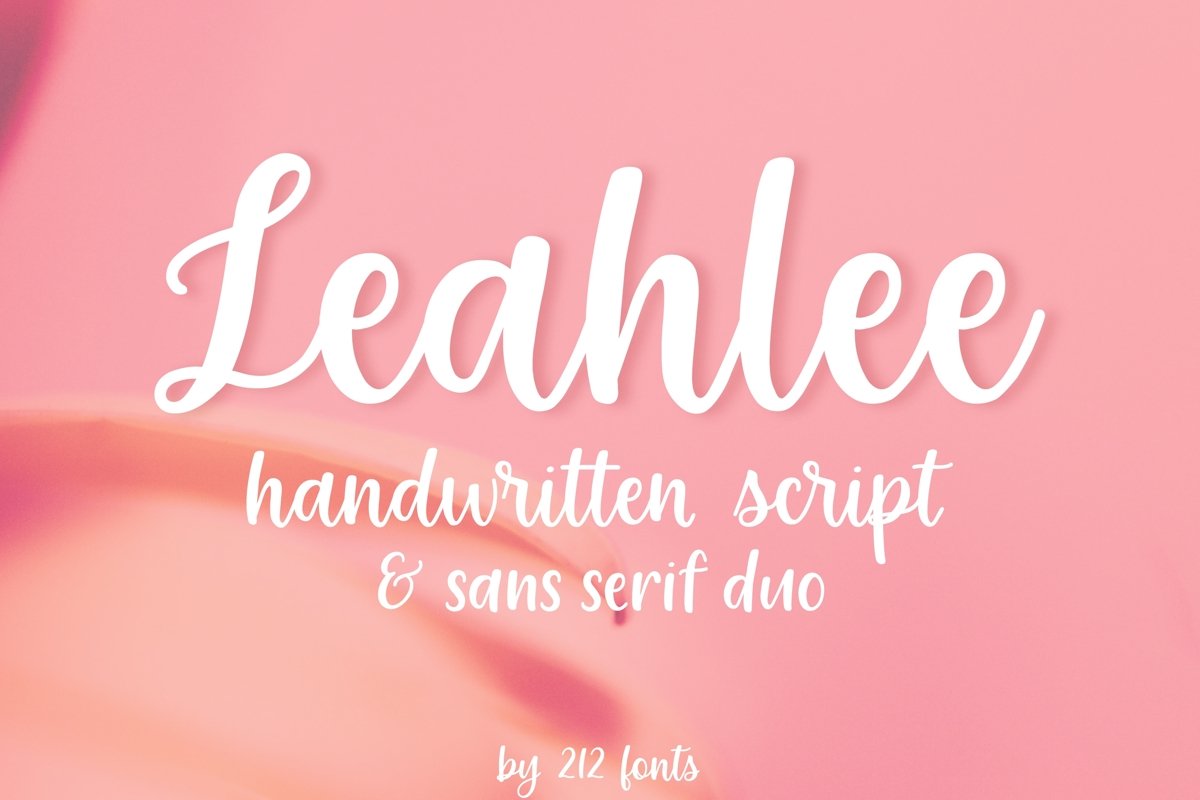
Leahlee Script and Sans Handwritten Feminine Font Duo
212 Leahlee Sans
212 Leahlee
Leahlee is a feminine, handwritten font duo that includes a script and sans serif that work great together!
Perfect for Wedding invitations, Branding, Logos, Greeting Cards and Quotes.